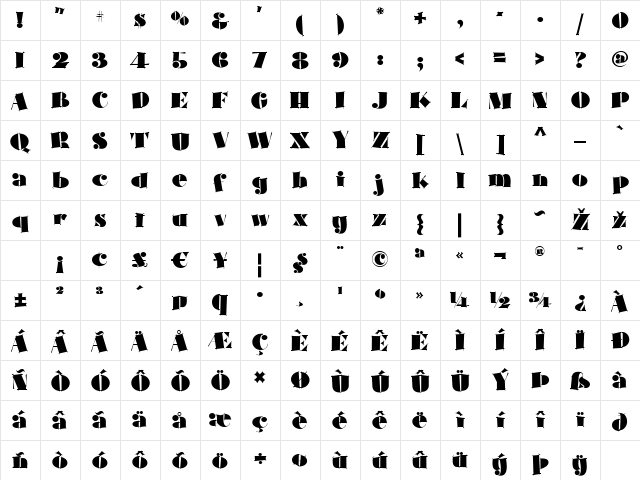
Slapdash Deco NF Regular
Foundry: Nick's Fonts
Designer: Nick Curtis
Design Context for Slapdash Deco NF
Slapdash Deco NF is a composed and adaptable typeface that performs quietly and consistently across a wide range of design contexts.